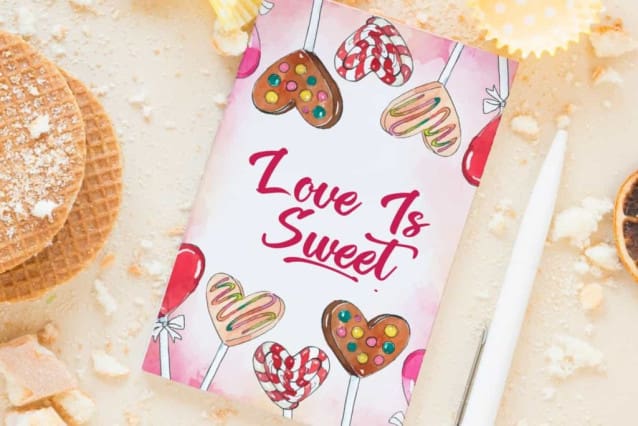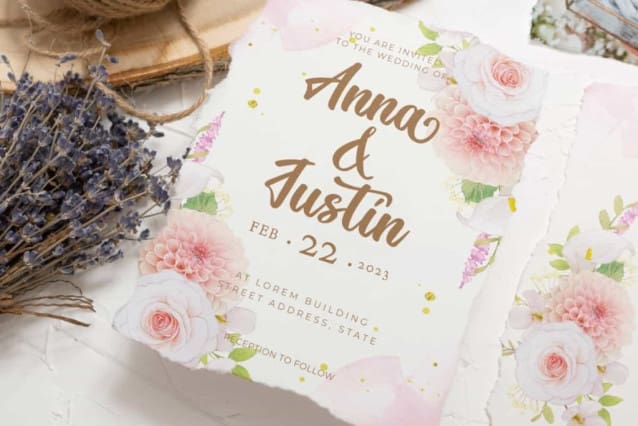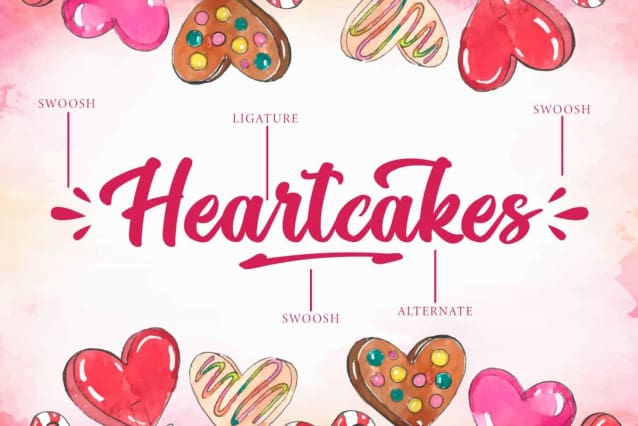
Heartcakes Script Font
Heartcakes Script Font is an awesome beautiful calligraphy script font with a touch of sweetness full of love and romance vibes. This font has romantic handwriting style with lovely flowing lines. It will be good for many designs, such as brochure, cover, custom design, gift box, invitation, label, poster, product packaging, quote, screen printing, stationery, website, and more!
Heartcakes Script Font includes full set of Uppercase and Lowercase Basic Characters, Numerals, and Punctuation. This font also contain Ligature, Alternate, and Swoosh characters that will be suitable for many industries, such as advertisement, café, event or wedding organizer, fashion, furniture, handicraft, perfume, resort, restaurant, spa and salon, etc.